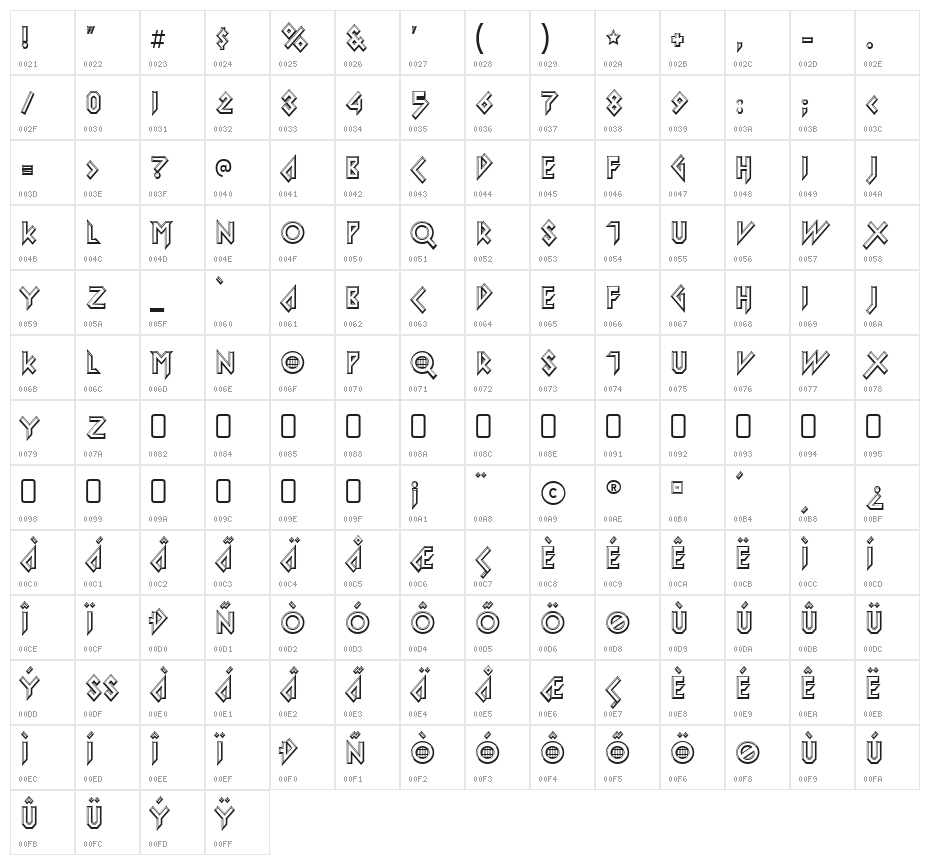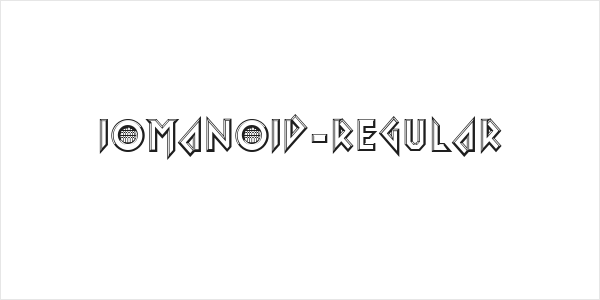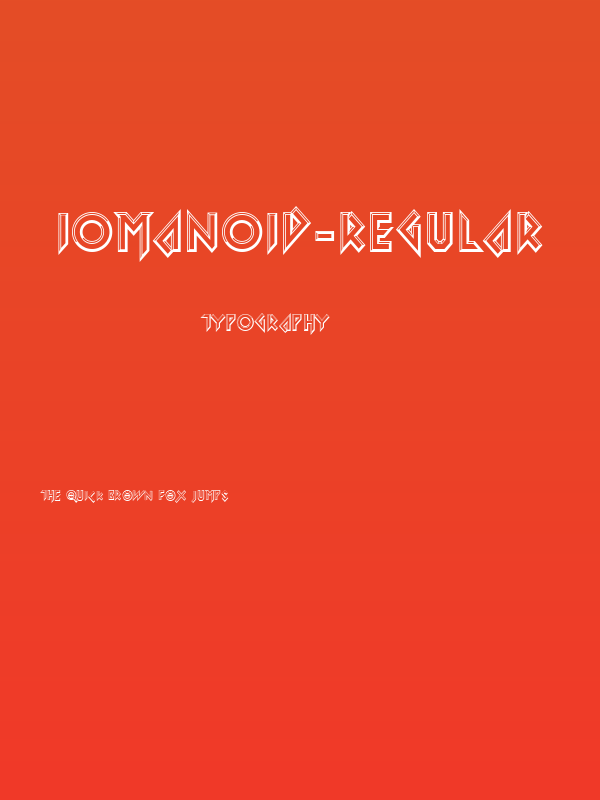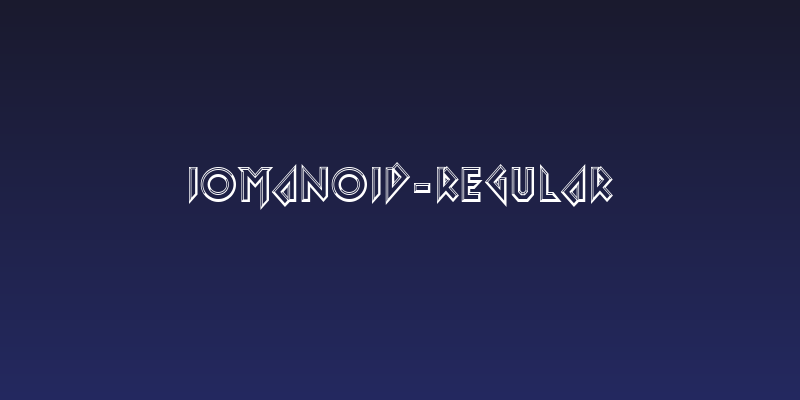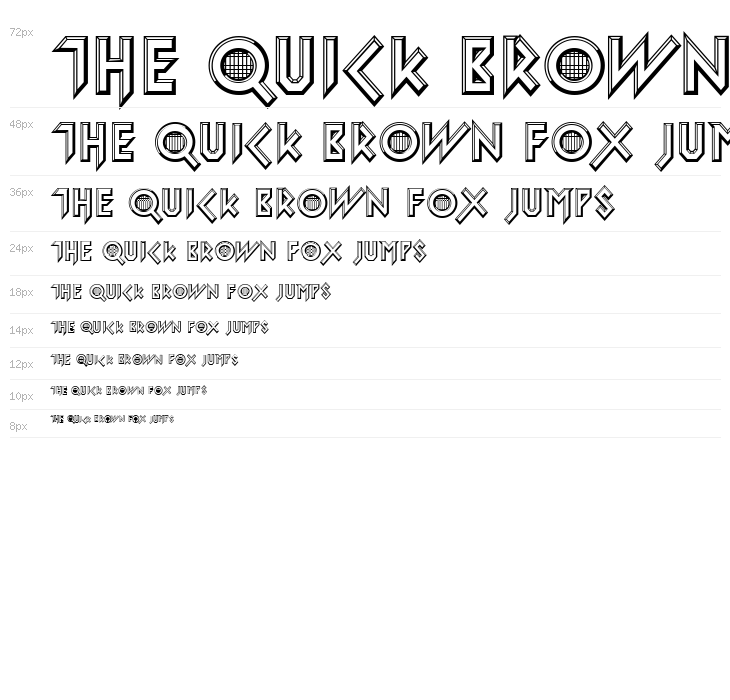
Iomanoid-Regular Font
Iomanoid-Regular Description
This font features a bold, geometric design with a three-dimensional effect. Each character is outlined with a shadow, creating a sense of depth and structure. The uppercase and lowercase letters maintain a consistent style, with sharp angles and clean lines that emphasize a futuristic and industrial aesthetic. The numbers and special characters follow the same design principles, ensuring uniformity across all glyphs. The font's unique style makes it suitable for projects that require a modern and edgy look.
Proposed ProjectsIdeal for sci-fi themed posters, video game titles, and modern branding projects.